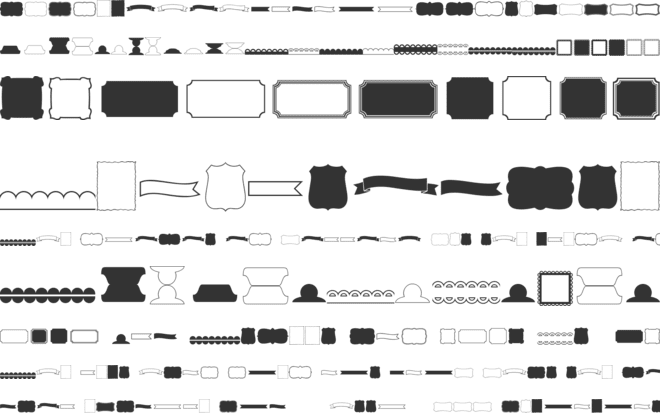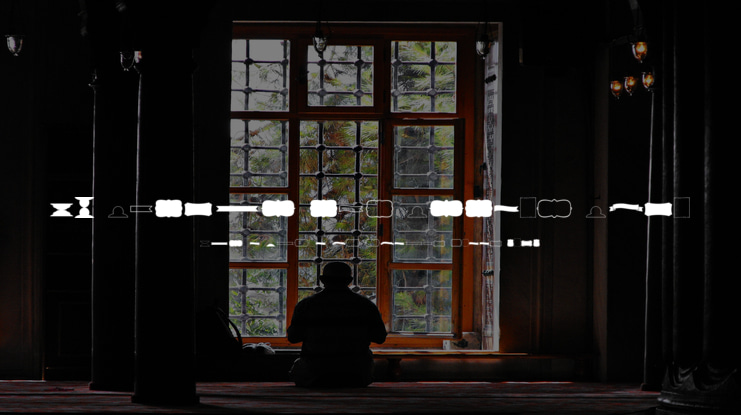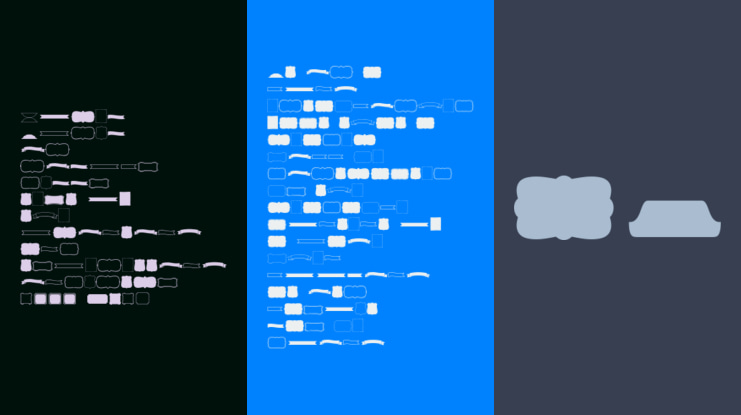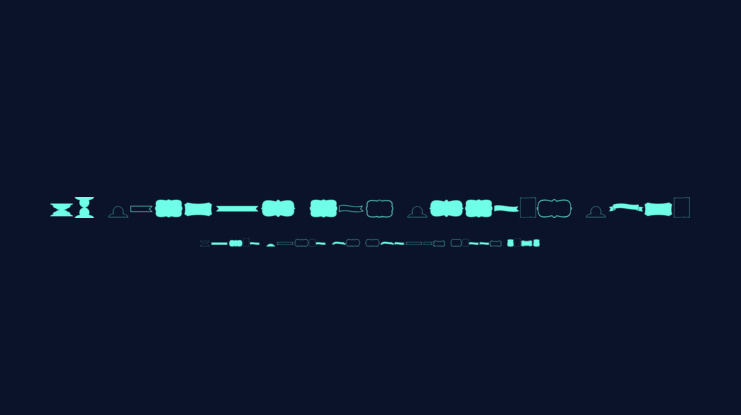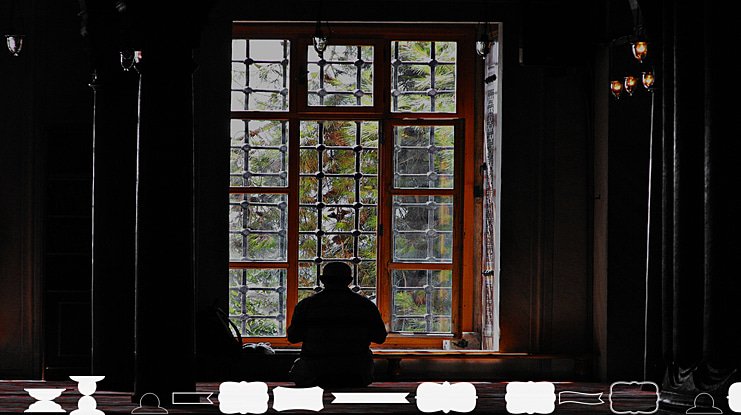
KG Flavor and Frames Five Font
Kimberly Geswein
Adorable ribbons, borders, frames, and more! All of the ribbons and borders line up perfectly to create repeating patterns! Binder tabs in both single and double sided versions (print, fold, tape) :)